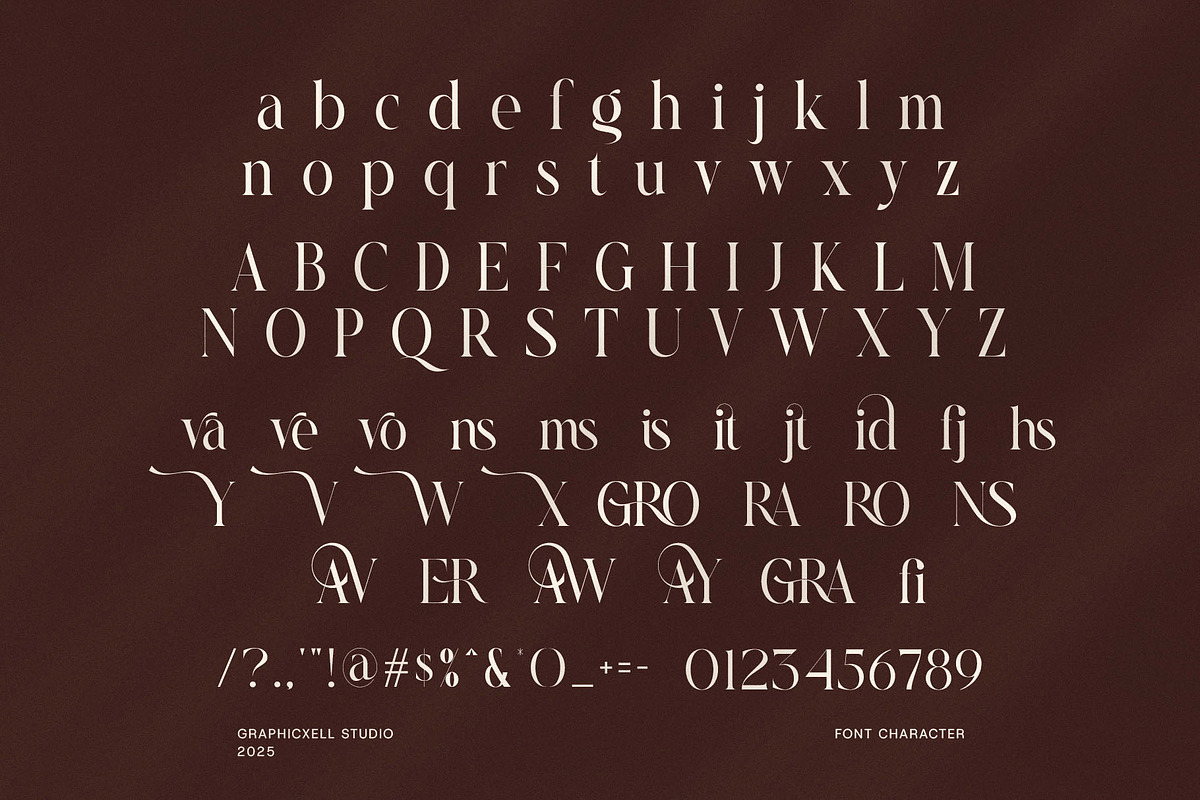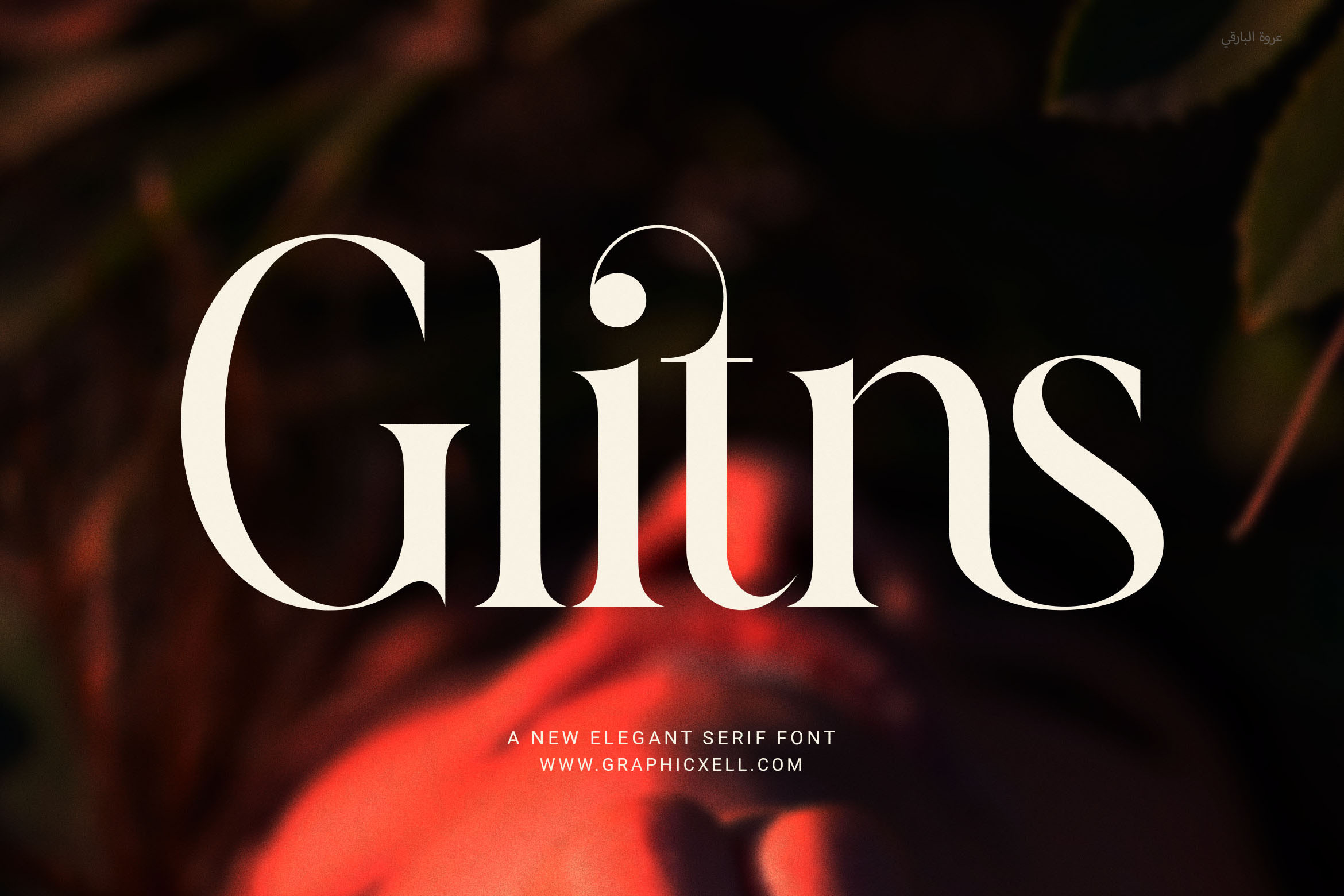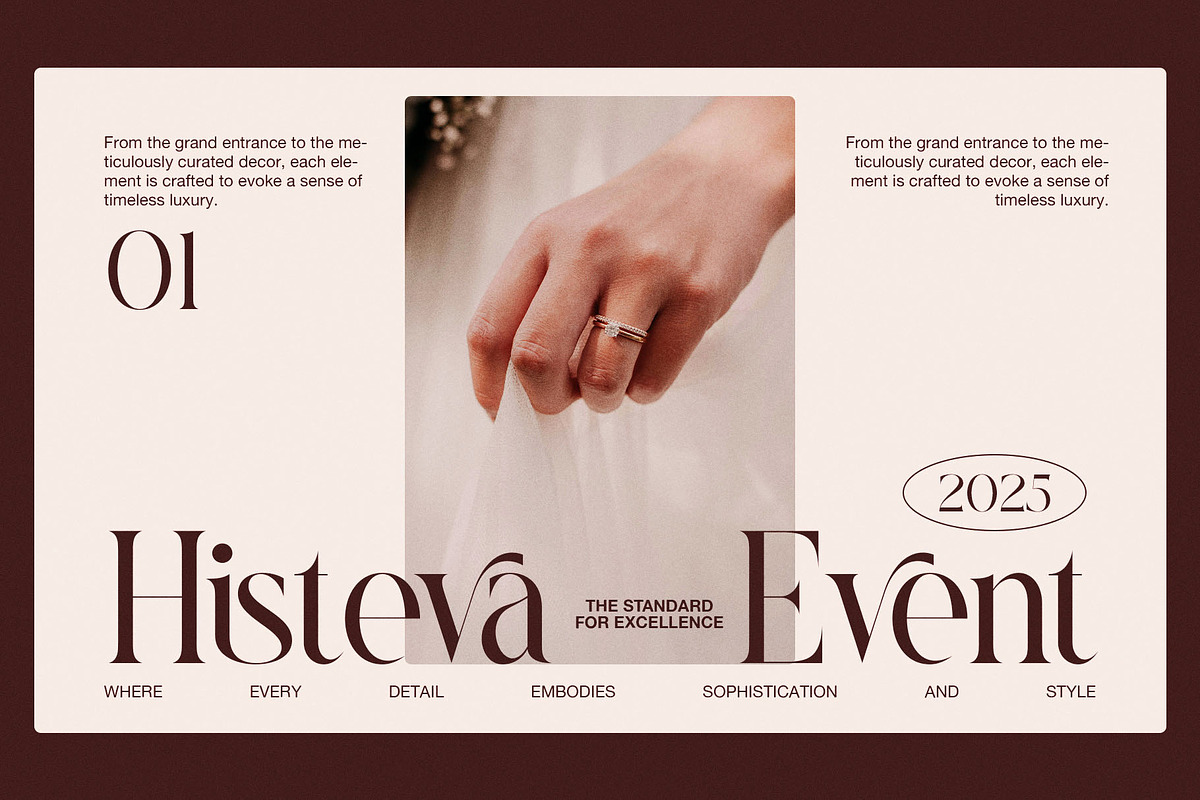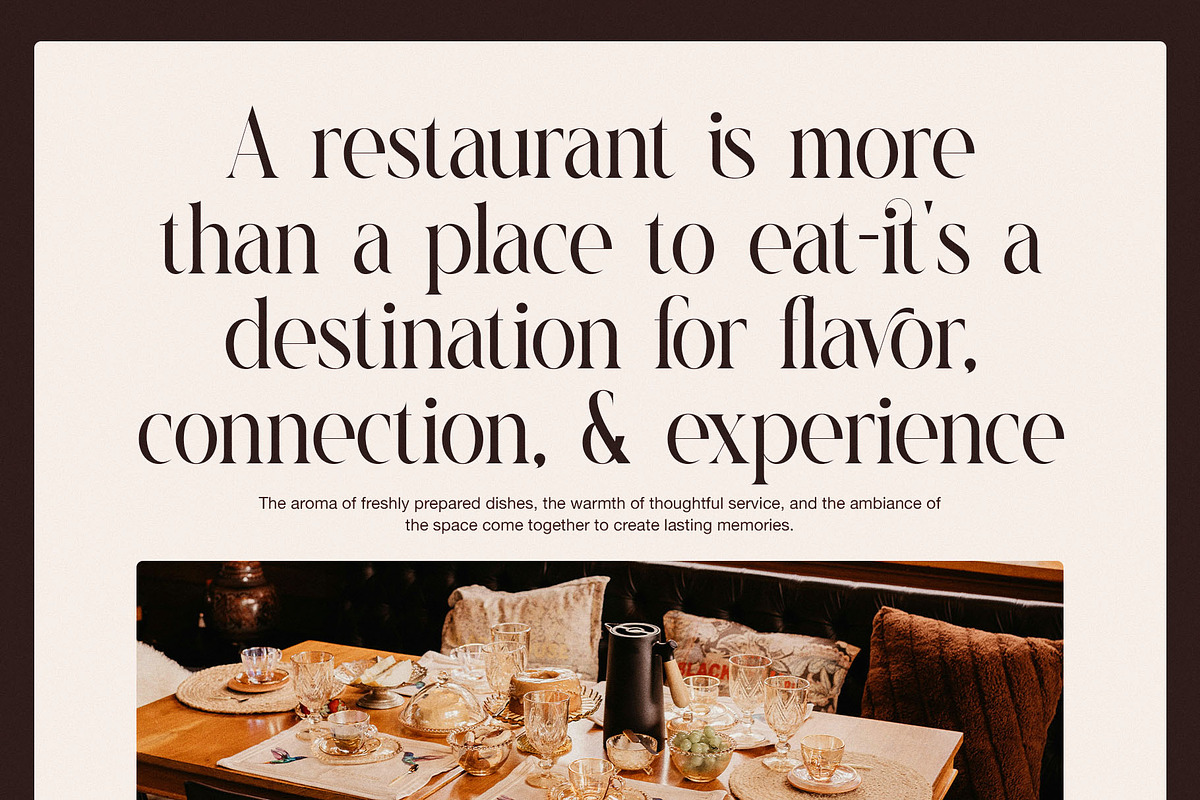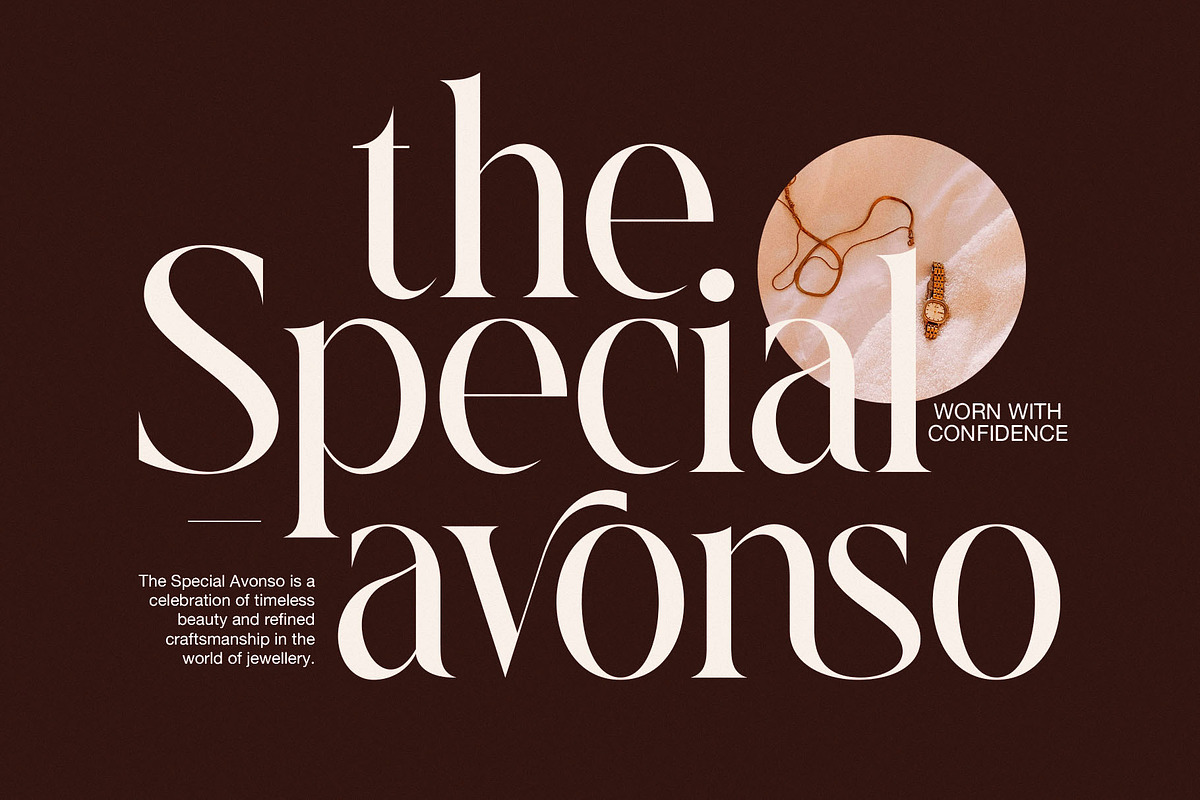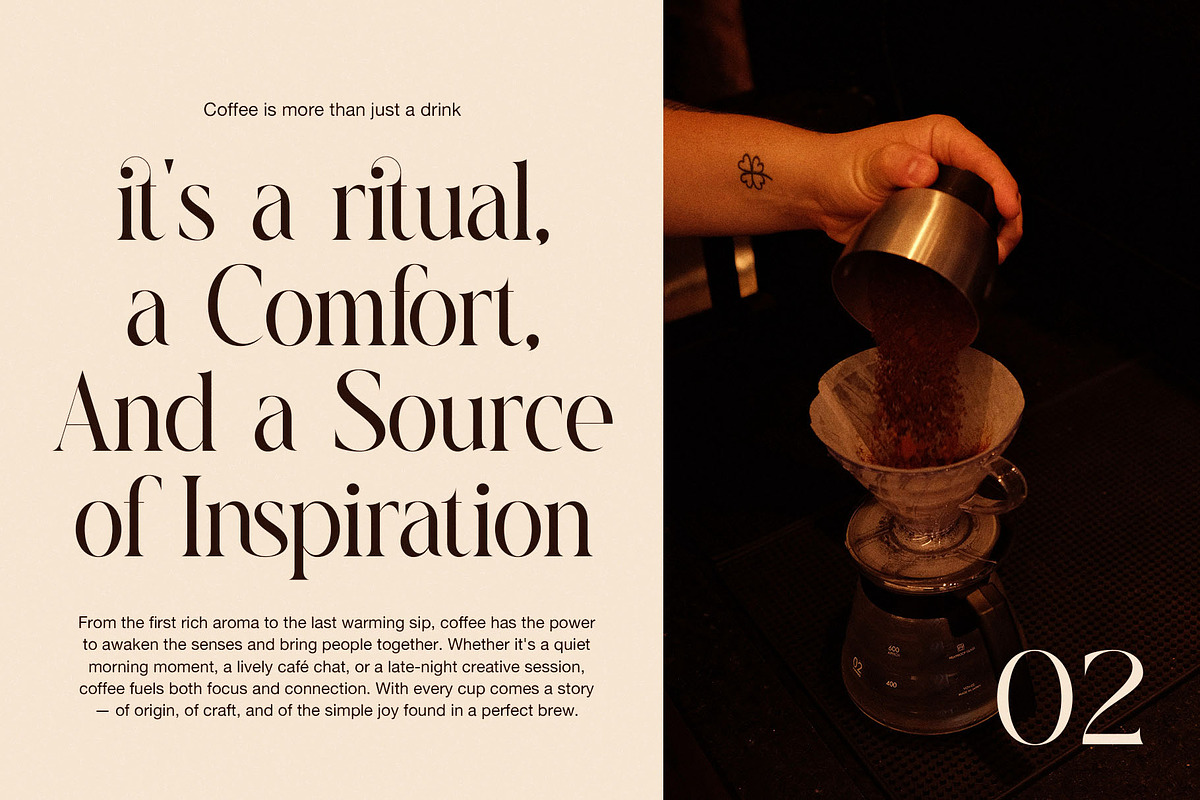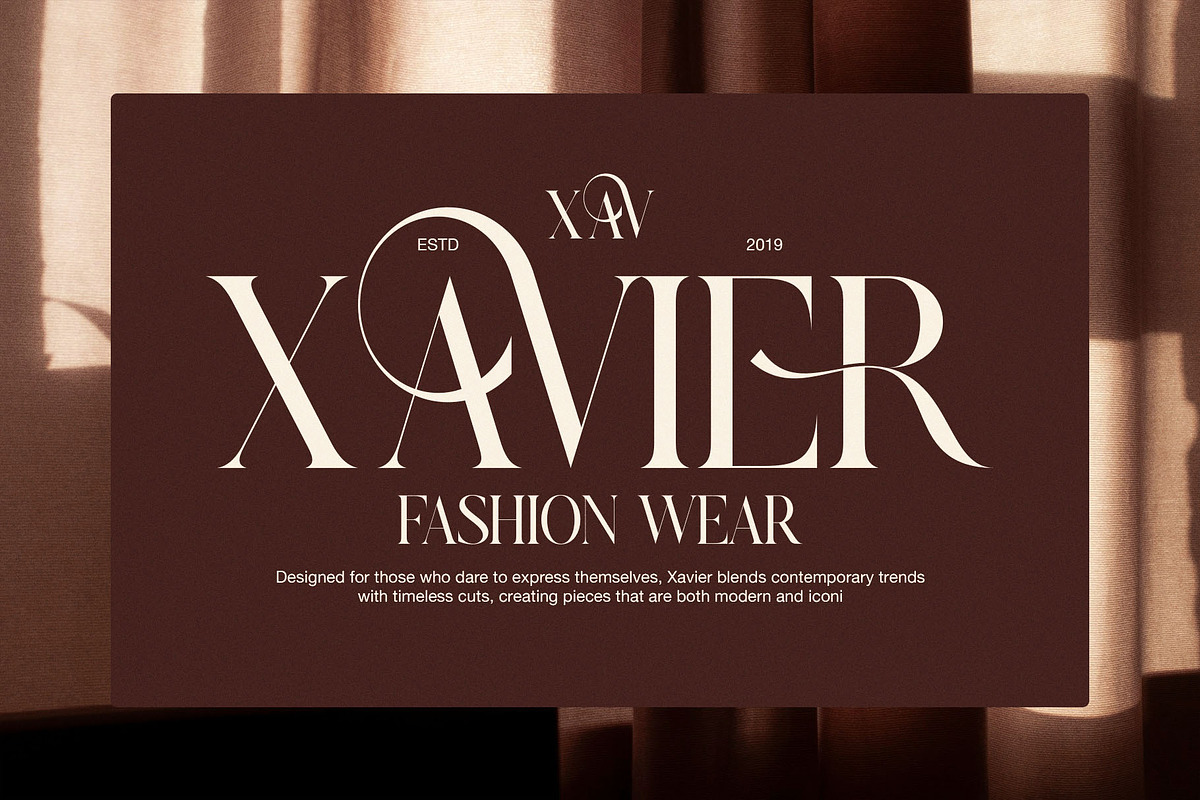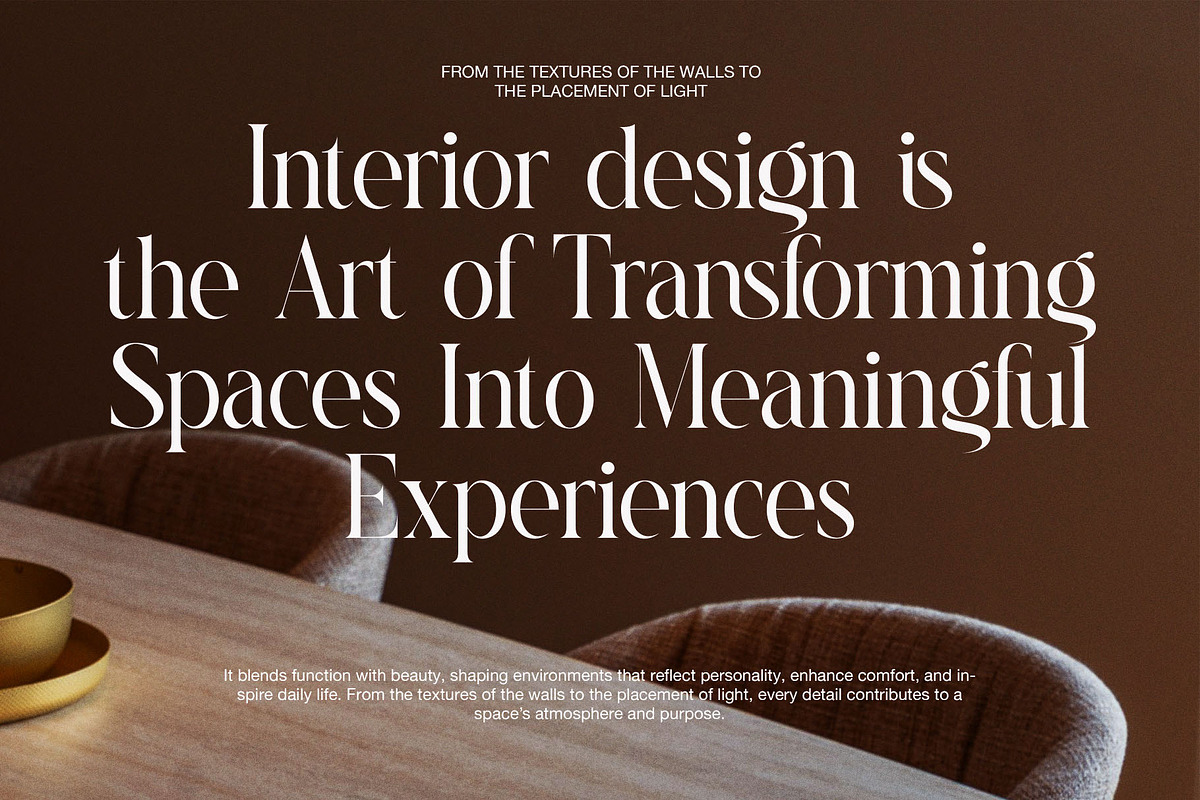
Glitns Elegant Serif Font
Glitns Elegant Serif Font — Timeless Sophistication Meets Modern Branding
Glitns Elegant Serif Font is a refined and contemporary typeface, designed to bring luxury and clarity to any creative project. With its balanced proportions and smooth curves, this serif font combines elegance with functionality—making it the perfect choice for high-end branding, editorial layouts, product packaging, and upscale web design.
Whether you're designing a logo for a boutique brand or crafting a polished magazine spread, Glitns adds a professional touch that resonates with modern aesthetics. It features clean, proportional letterforms and a variety of stylish ligatures that elevate every word, making your content both beautiful and legible.
Thanks to its versatile design, Glitns adapts seamlessly to a wide range of applications. From fashion and lifestyle to food and corporate branding, this font helps deliver a luxurious look and feel that stands out. Additionally, it supports multilingual characters, enhancing its global usability.
Why Choose Glitns Elegant Serif Font?
Elegant serif with modern details
Perfect for logos, branding, web and editorial design
Functional ligatures for enhanced style
Proportional spacing for visual harmony
Ideal for fashion, luxury, food, beauty, and more
Transform your designs with a font that communicates class and modernity. Glitns isn’t just a font—it’s a branding solution.